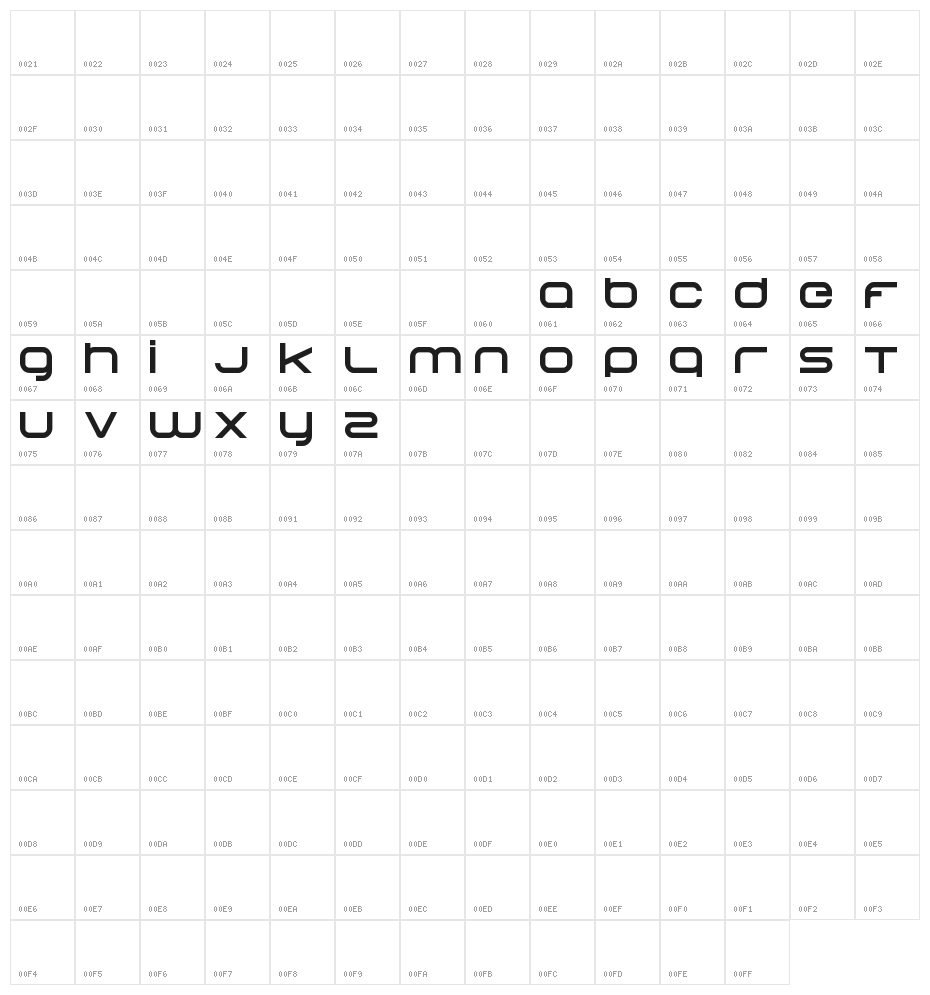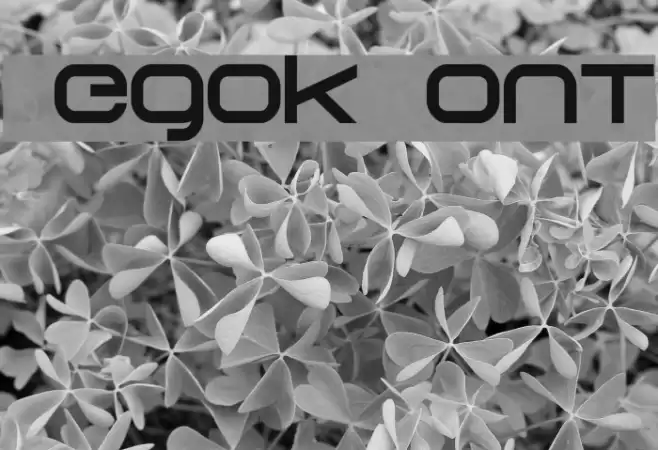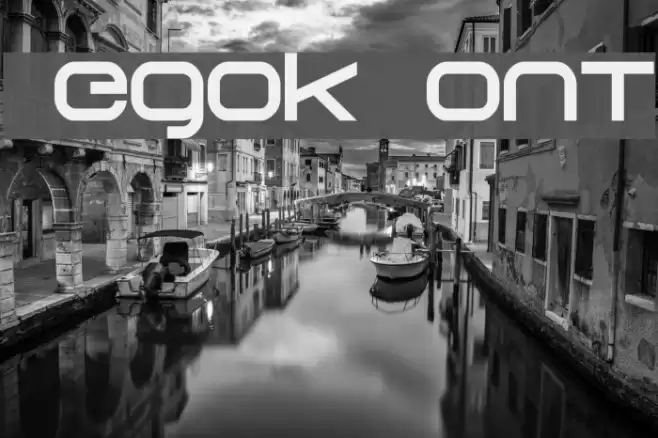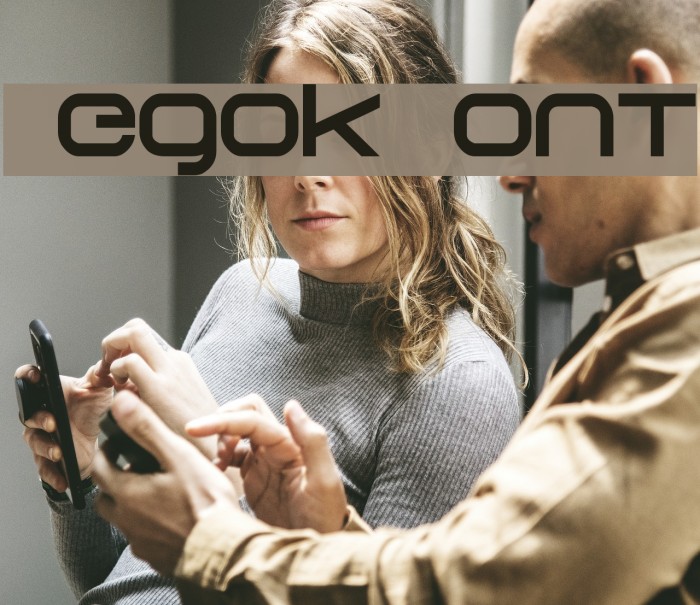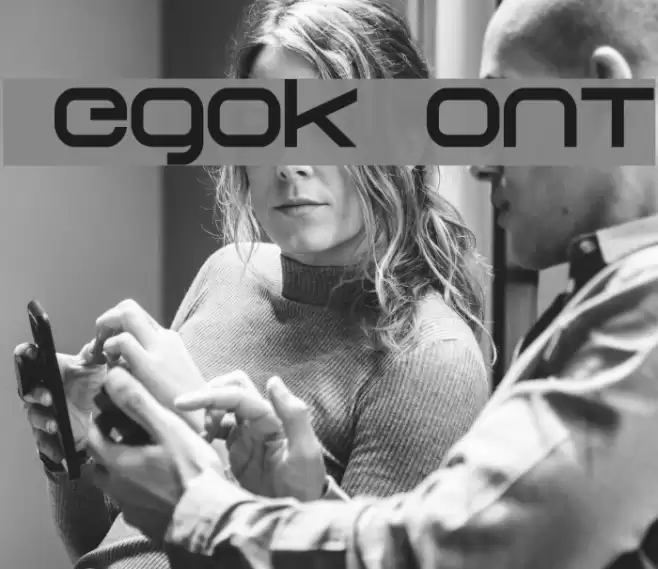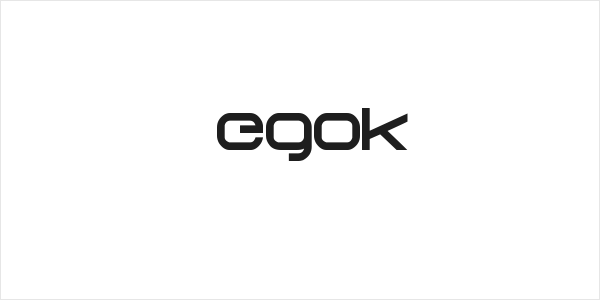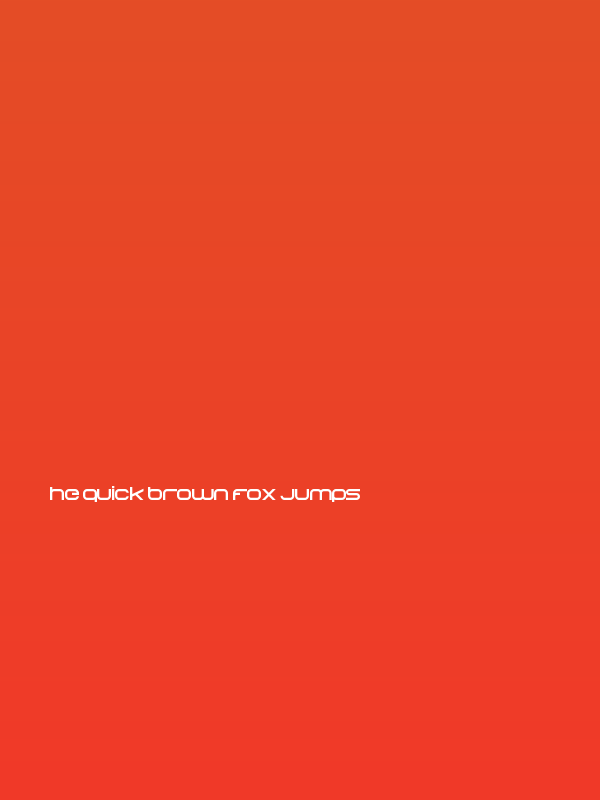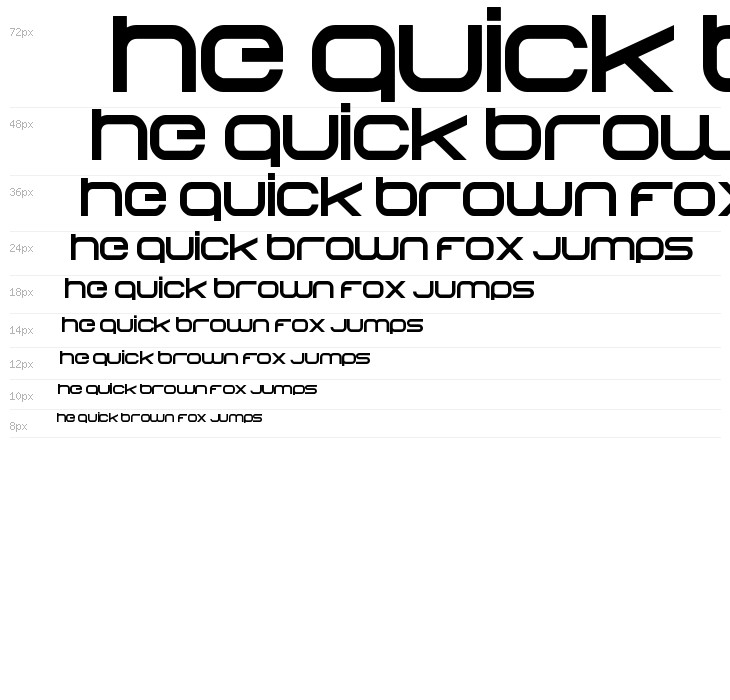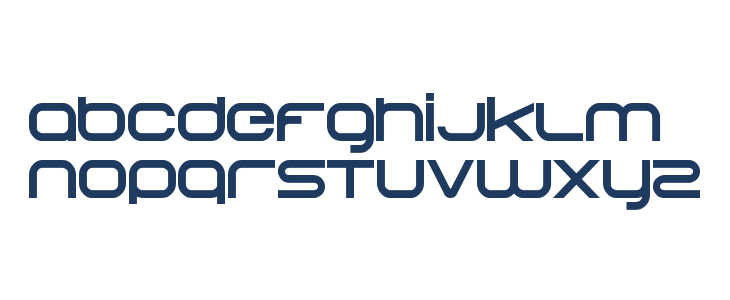
Begok Font
Begok Description
This font features a sleek, modern design with a futuristic aesthetic. The characters are uniformly structured with a geometric style, emphasizing rounded edges and consistent line thickness. The lowercase letters exhibit a unique blend of curves and straight lines, creating a harmonious and balanced appearance. The overall design is clean and minimalistic, making it suitable for contemporary projects. The font's uniformity and symmetry contribute to its readability, while its distinct style adds a touch of sophistication and innovation.
Proposed ProjectsIdeal for technology branding, modern website headers, innovative product packaging, and futuristic poster designs.